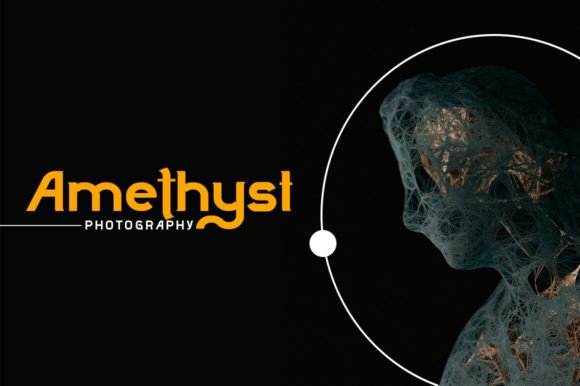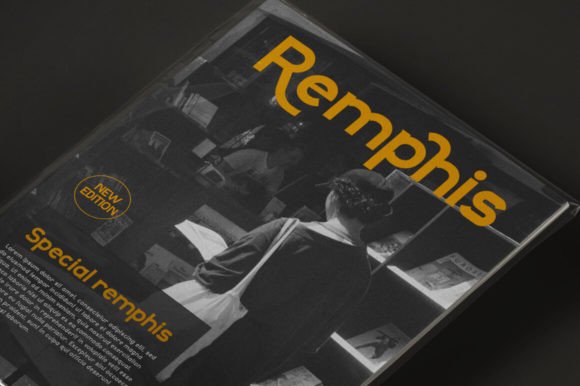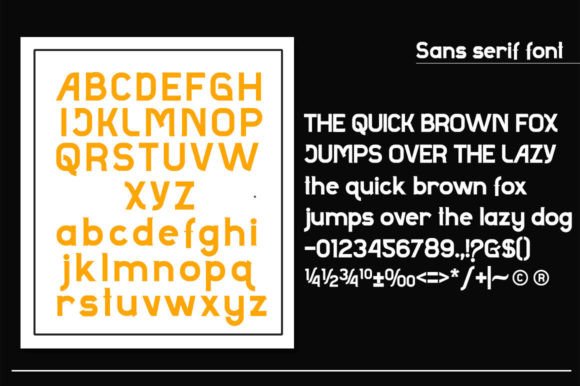
Introduction to Lightes Font
As a designer, there’s nothing quite like the thrill of bringing a creative project to life. It’s that moment when the perfect font choice clicks, and your design starts to take shape. For many of us, that moment is made possible by the right design resource – and that’s where Lightes Font comes in.
This versatile and modern sans-serif font has become a go-to choice for designers looking to create high-quality content that’s both elegant and easy to read. With its clean lines, soft curves, and airy letter spacing, Lightes Font is perfect for body text on websites, articles, and professional documents. And with its transparent background, it’s also a great choice for minimalist designs like posters, logos, and presentations.
Key Features of Lightes Font
- High quality design resource ideal for creative projects, offering a unique and modern aesthetic.
- Lightes Font features a transparent background, allowing for seamless integration into any design or creative project.
- With a resolution of 300 DPI, this font is suitable for high-quality printing and digital use, ensuring crisp and clear text.
- Its unique characteristics include a clean and minimalist design, making it perfect for branding, logos, and other design elements.
Honest Review: Lightes Font
As a designer, I’m always on the lookout for high-quality design resources to enhance my creative projects. Recently, I stumbled upon the Lightes Font, and I’m excited to share my honest review with you.
- ✨ Beautiful, elegant design that’s perfect for creative projects requiring a touch of sophistication.
- ✨ Easy to read, even at smaller font sizes, making it ideal for body text or headings.
- ✨ Comes in a range of weights and styles, giving you flexibility in your design choices.
One of the standout features of the Lightes Font is its transparent background, allowing you to easily overlay it on images or other design elements. The font is also available for free download, making it a valuable addition to any designer’s toolkit.
- ⚠️ Limited support for certain languages, which may be a concern for international designers.
- ⚠️ Not suitable for use in extremely small font sizes, where the text may become difficult to read.
Overall, I’m impressed with the Lightes Font, and I think it’s a valuable design resource for any creative project. While it may have some limitations, its high quality and elegant design make it a worthwhile addition to your design toolkit.
The Lightes Font is a versatile design resource ideal for various creative projects. Its high-quality, transparent background makes it perfect for overlays, icons, and other design elements.
Tips for Getting the Most Out of Lightes Font
To get the most out of the Lightes Font, use it for overlays, icons, and other design elements where a transparent background is beneficial. Experiment with different font sizes and colors to achieve the desired effect.
The Lightes Font is ideal for various creative projects, including:
- Branding and logos
- Infographics and presentations